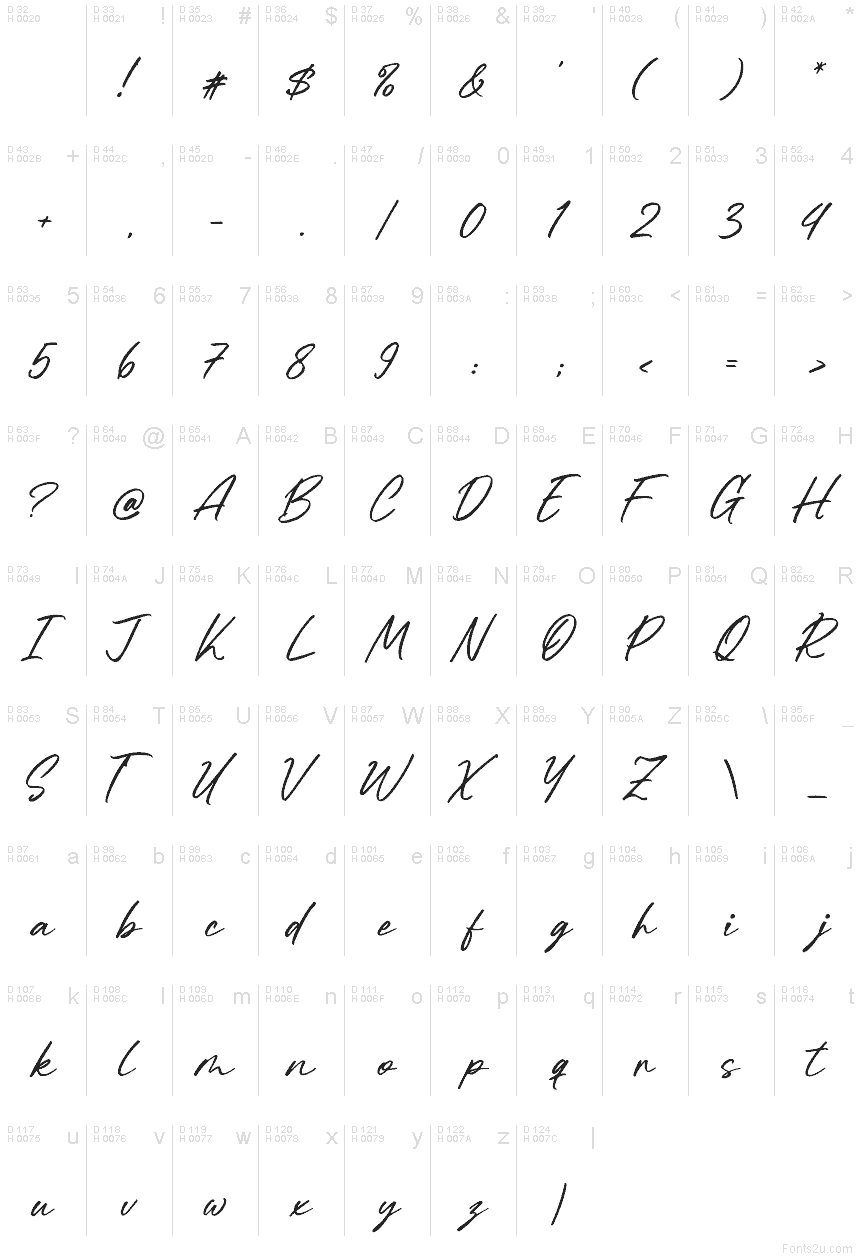
Wishday
Wishday font by Khurasan is a free handwritten brush script font that solves a classic challenge: getting that lively, human signature feel without sacrificing clarity. Its soft, inky texture and quick, forward-leaning strokes read cleanly at a glance, while the loose rhythm keeps it from feeling stiff or overdone. You get personality and polish in the same breath.
Using Wishday, headlines and short phrases snap into focus—logo marks, product packaging, event invitations, quote graphics, social posts, and boutique branding all benefit from its confident swipe. The spacing is airy, so words breathe even at medium sizes. For a balanced look, pair this free font with a crisp, neutral sans and let Wishday handle the warmth and emphasis.